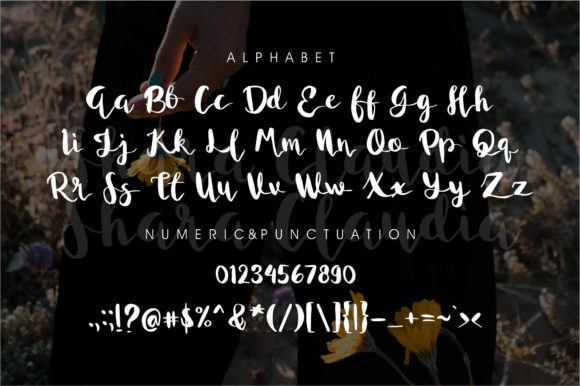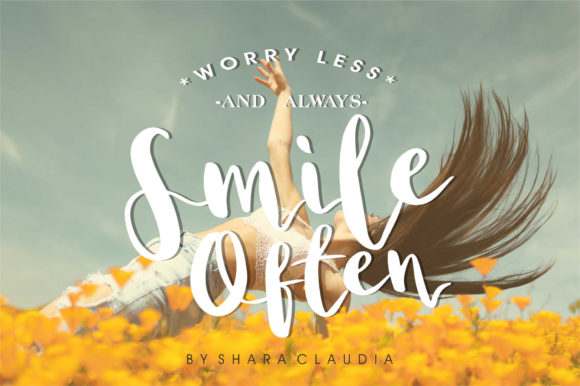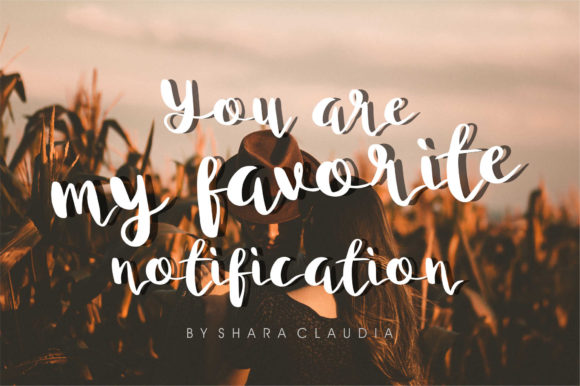
Introduction to Shara Claudia Font
Have you ever been in the middle of a creative project, staring at a blank page or screen, trying to find the perfect font to bring your idea to life? We’ve all been there. That’s why we’re excited to introduce you to the Shara Claudia Font, a unique handwritten font that will add a touch of elegance and sophistication to any design project.
| 👤 Author | geadesign |
As a valuable resource for designers, the Shara Claudia Font offers a high-quality solution for those seeking a distinctive and creative look. Its beautiful, handwritten style is perfect for projects that require a personal touch, and its transparent background makes it easy to layer and manipulate in any design software. Whether you’re working on a branding project, a social media campaign, or a creative brochure, the Shara Claudia Font is a must-have design resource.
Key Features of Shara Claudia Font
- High-quality font with a transparent background, making it ideal for creative projects that require a unique design resource.
- Comes in a single weight, perfect for adding a touch of elegance to your design without overwhelming the composition.
- Supports a wide range of languages, making it a versatile design resource for international projects.
- Designed to be highly legible, even at small font sizes, ensuring your message is conveyed clearly to your audience.
- Perfect for use in a variety of creative projects, including logos, brochures, business cards, and more.
Honest Review: Shara Claudia Font
As a designer, I’m always on the lookout for high-quality fonts to elevate my creative projects. The Shara Claudia Font is one of the many design resources I’ve come across, and I’m here to share my honest review.
- ✨ Beautiful, elegant script style that’s perfect for wedding invitations, greeting cards, or any romantic theme
- ✨ High quality and clear legibility, even at small font sizes
- ✨ Supports a transparent background, making it easy to layer over images or other design elements
- ⚠️ Only comes in a few weights and styles, which may limit its versatility
- ⚠️ Not ideal for large-scale headings or bold, attention-grabbing text
Overall, I think the Shara Claudia Font is a great addition to any designer’s toolkit. It’s perfect for creative projects that require a touch of elegance and sophistication. And the best part? It’s a free download, making it an excellent resource for designers on a budget.
To get the most out of Shara Claudia Font, use it in conjunction with a transparent background to create a seamless design. Experiment with different font sizes and colors to find the perfect balance for your project.
Shara Claudia Font is commonly used for creative projects, including social media graphics, presentations, and documents. Its high-quality design and transparent background feature make it an ideal choice for professional designs.
The Shara Claudia Font is designed to be scalable and versatile, making it suitable for a wide range of design applications. The font has a high resolution and supports pixel densities up to 300 DPI, allowing designers to achieve a crisp and clear visual result, even when used with a transparent background.